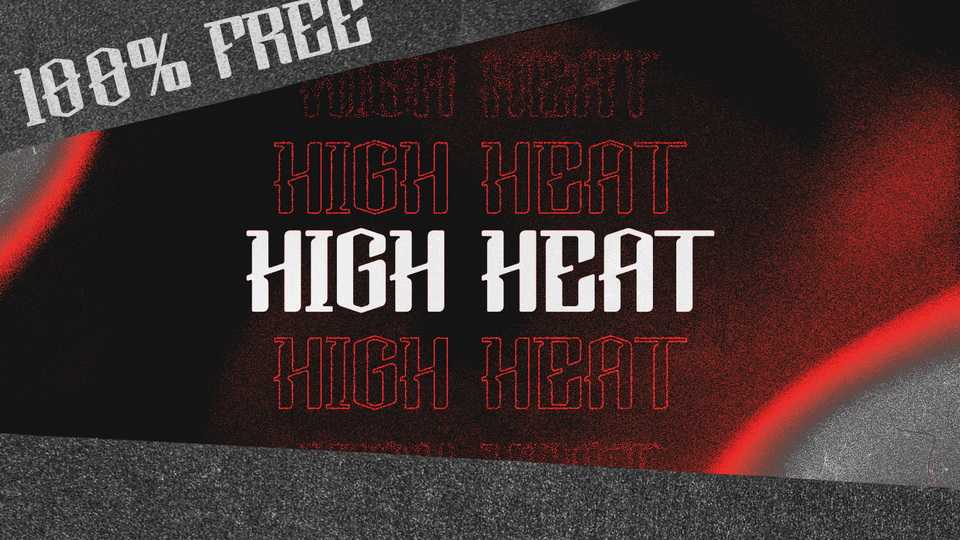
Download High Heat font, a display typeface with a bold and powerful appearance. High Heat is recommended for titles, short texts, and elements of visual communication.
Designer: Mason Mulcahy